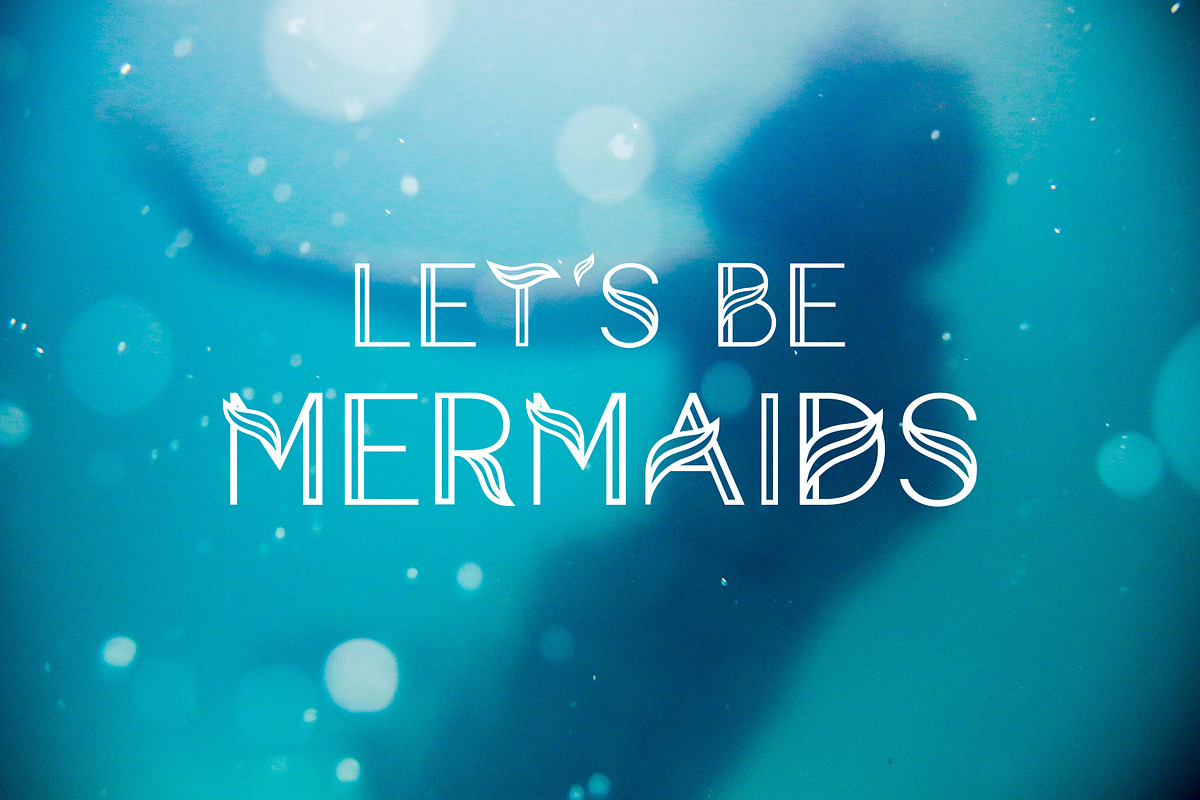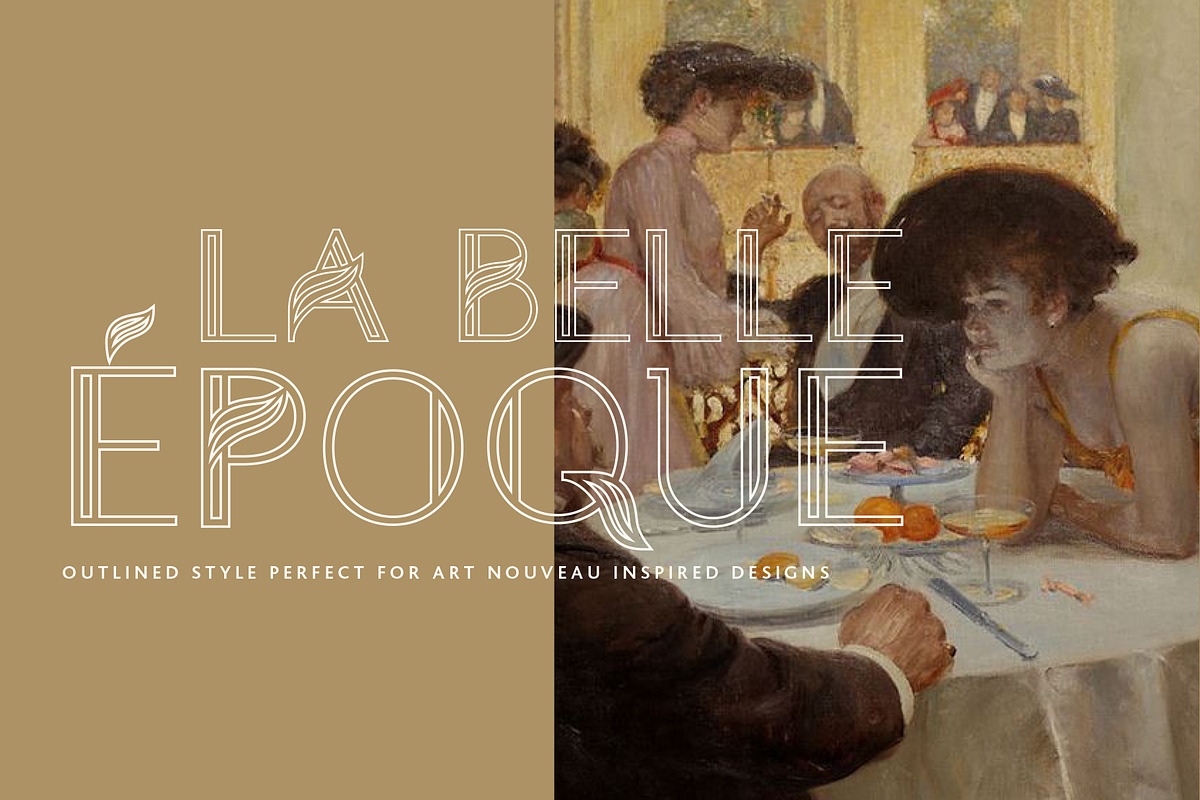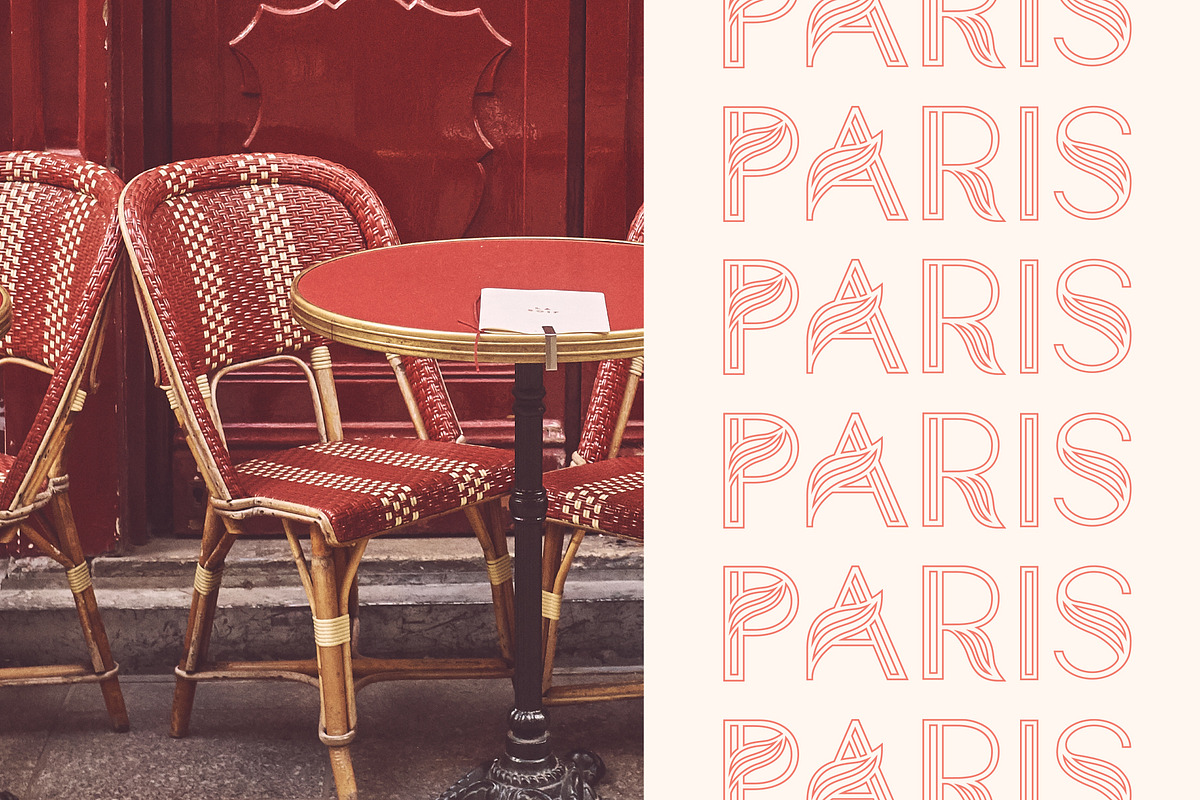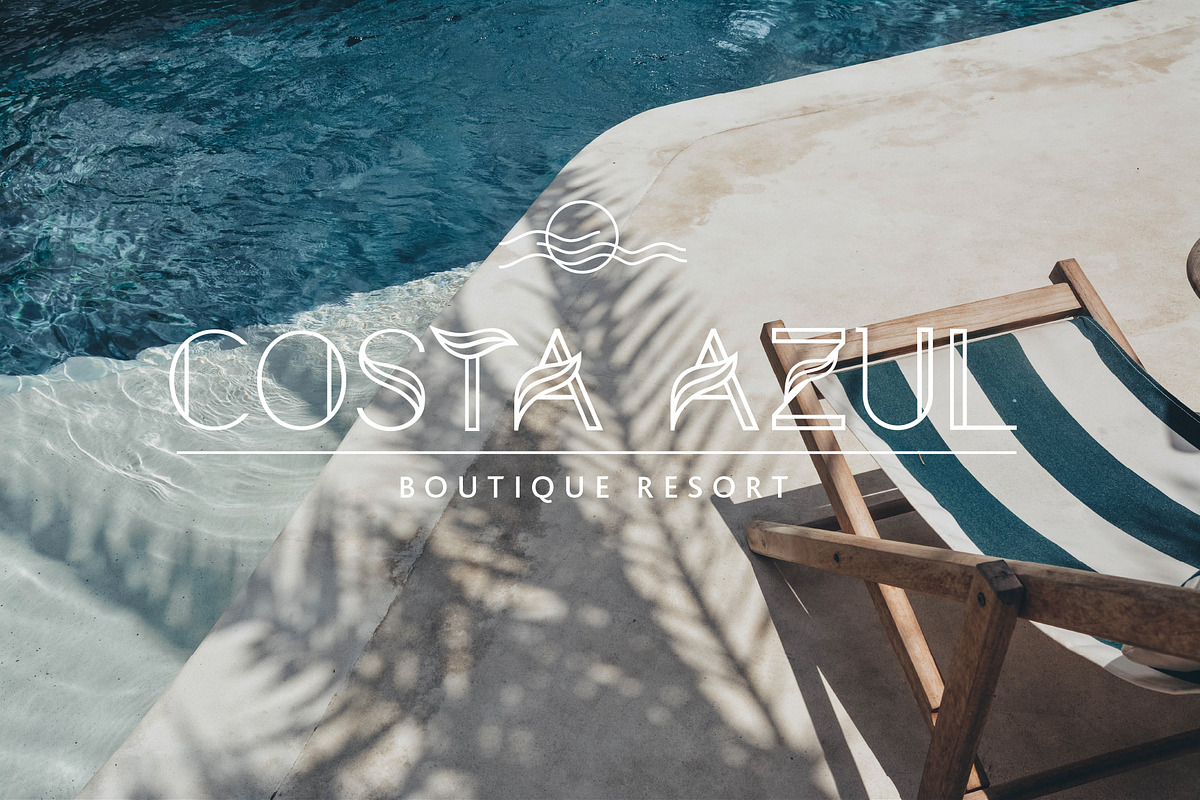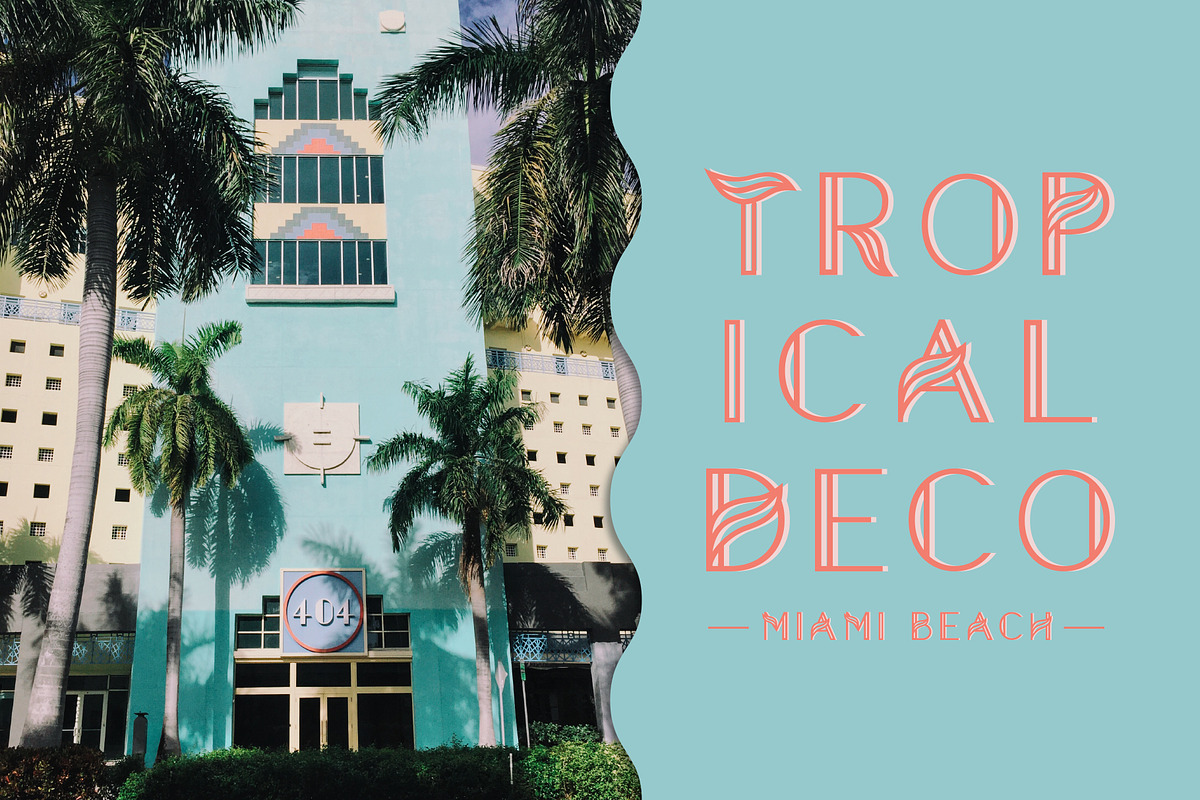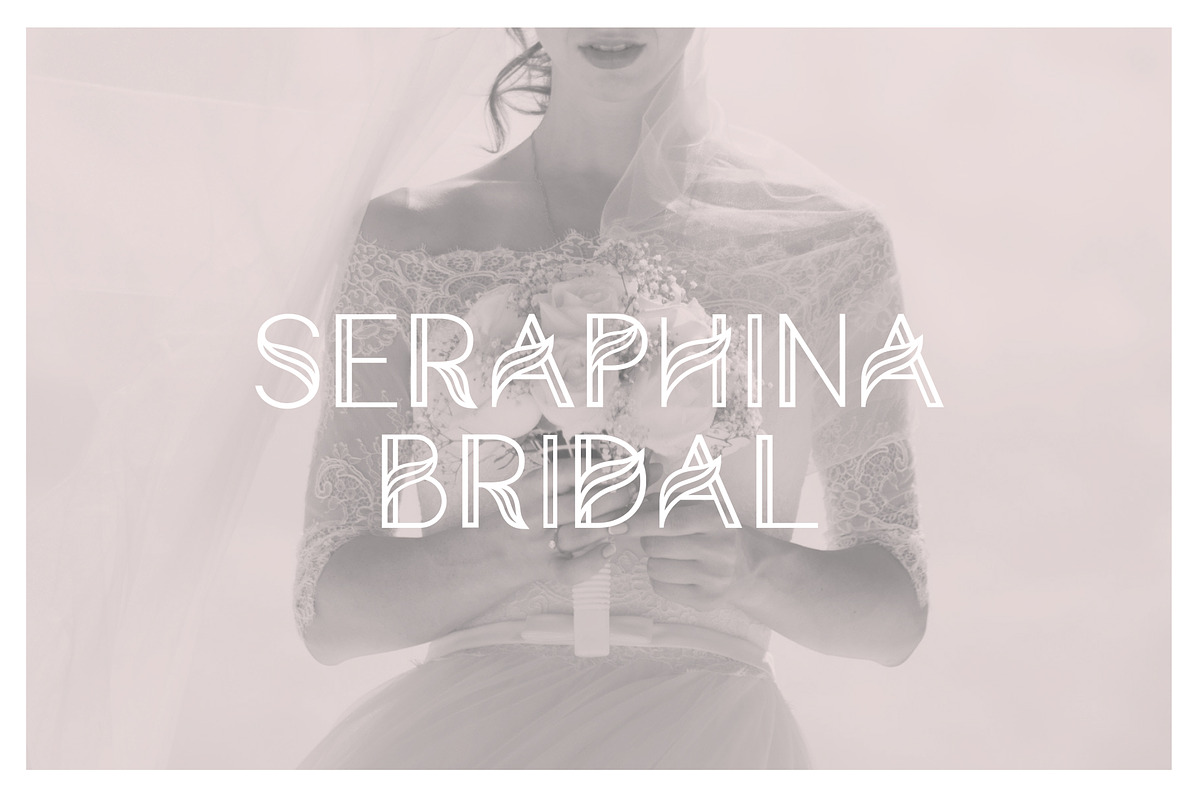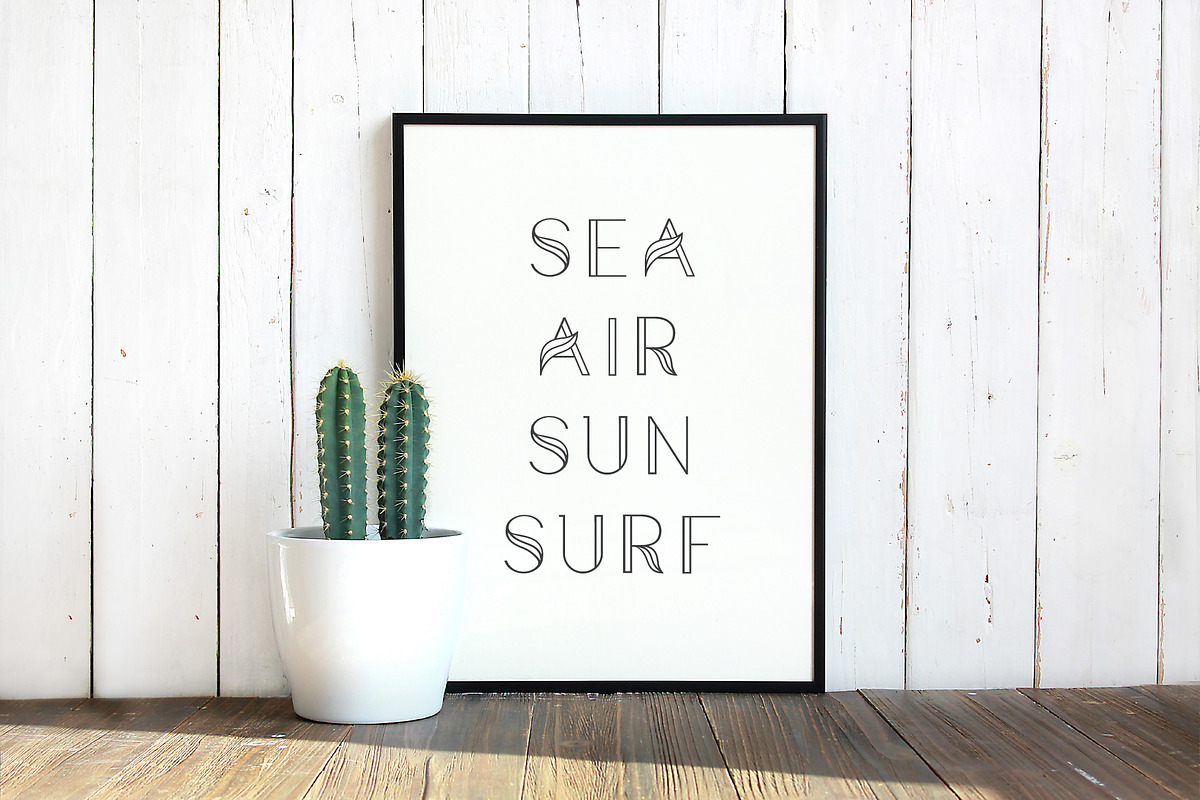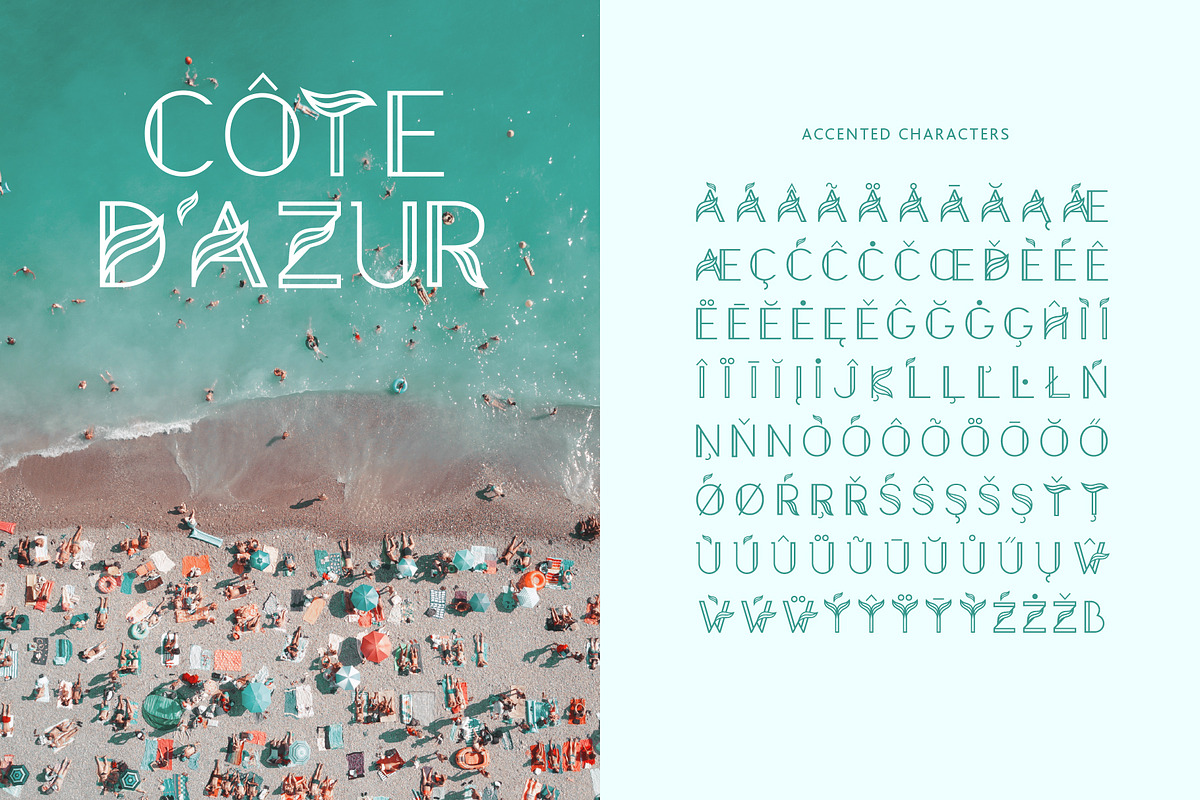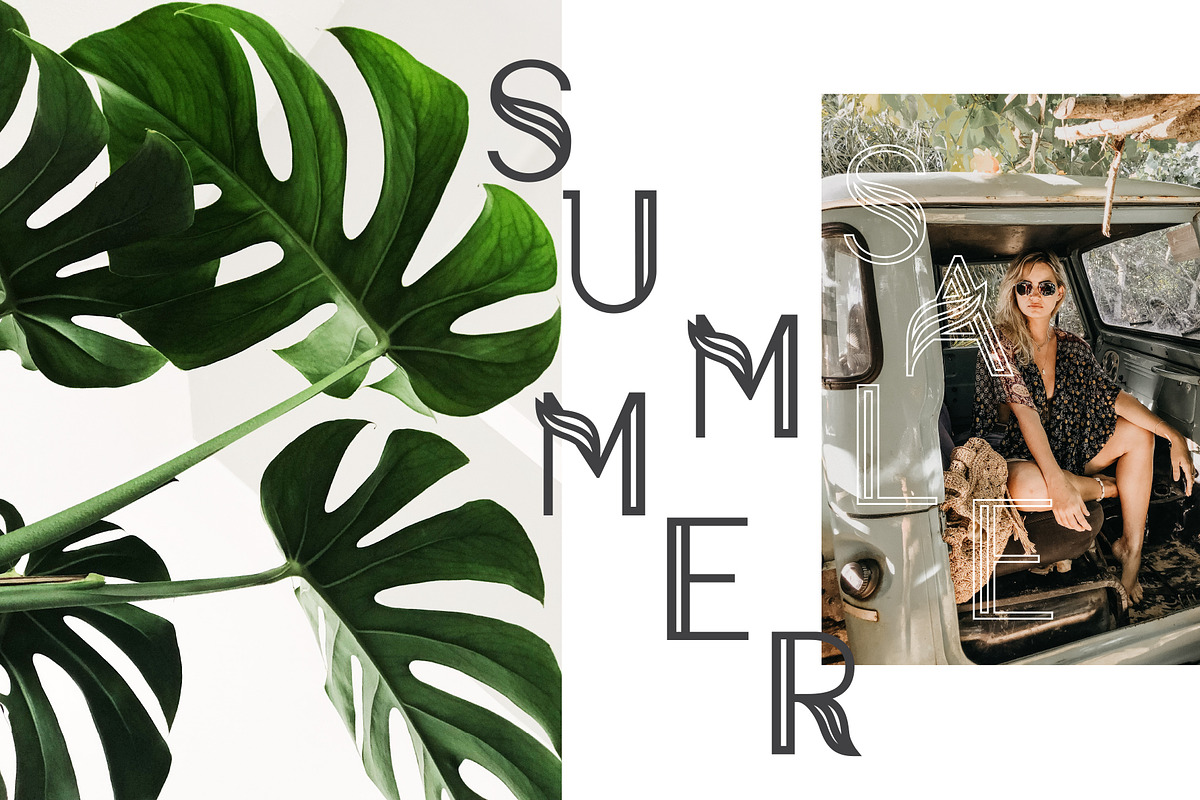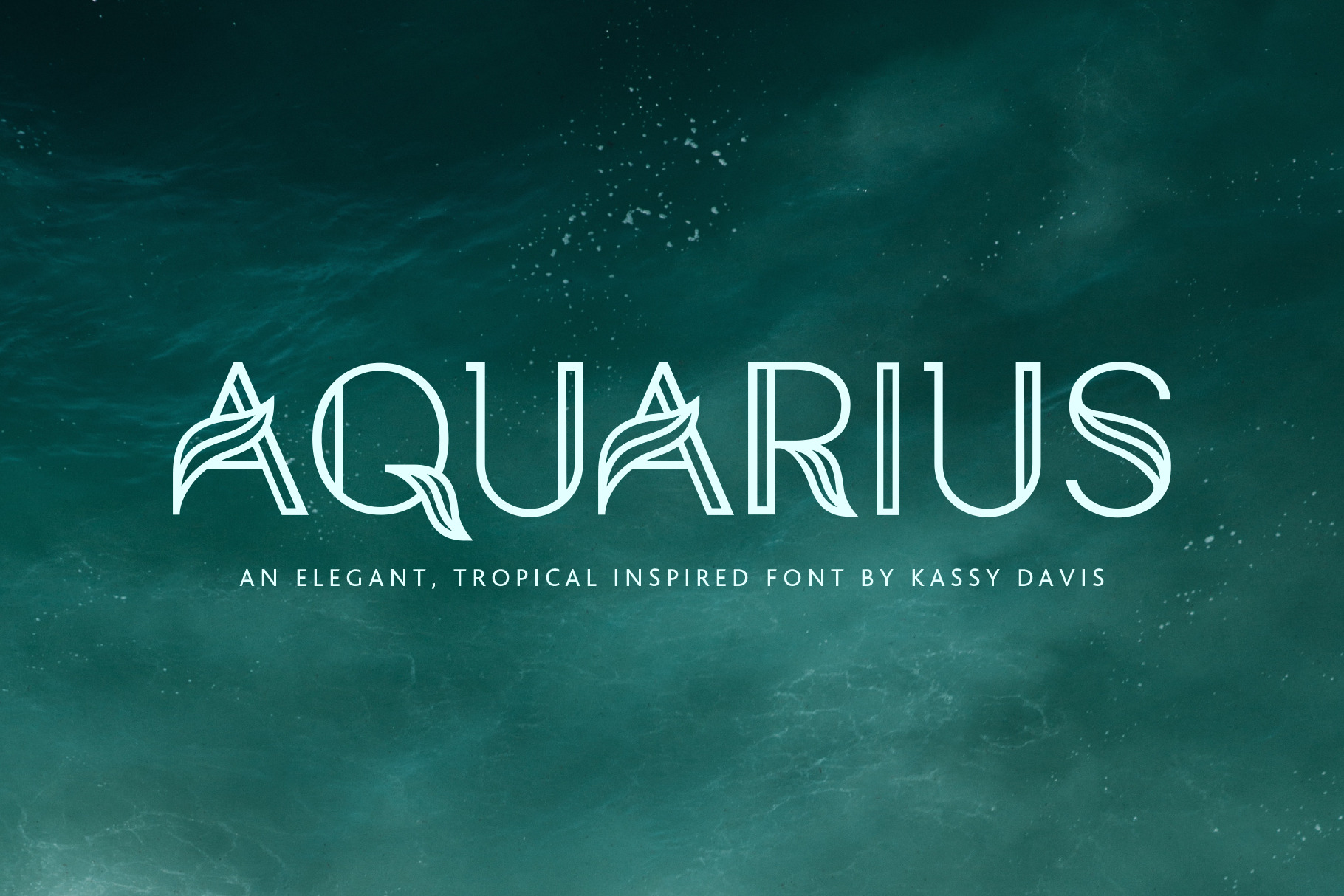
Aquarius – A Tropical Font Family
This sophisticated display font has a clean and elegant aesthetic with a tropical, marine-like twist.
Aquarius looks beautiful when used in branding, headlines, magazine layouts, posters, packaging, and more. Its tropical deco feel can transition from modern designs to vintage, art deco-esque designs with ease.
Aquarius Features:
• 5 styles: Light, Regular, Semibold, Bold & Outlined
• Numbers & Punctuation
• Accented Characters